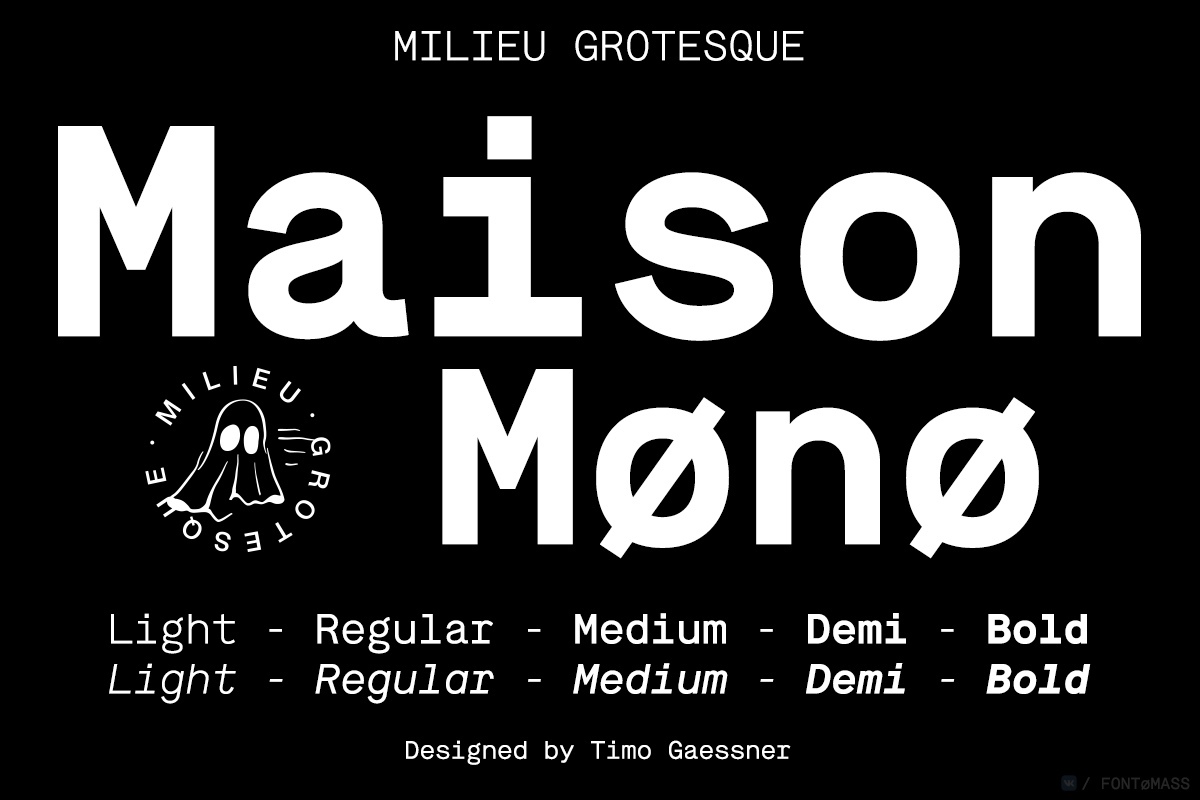
Maison Mono Font
Maison Mono Font is perfect for code editors, programming interfaces, terminal applications, data visualization projects, technical documentation, software development tools, command line interfaces, system monitoring displays, API documentation, and developer tool branding. This precision-engineered typeface excels in applications where character alignment, readability, and coding efficiency are fundamental requirements.
Maison Mono Font is exciting because it revolutionizes monospace typography by combining the functional requirements of programming with sophisticated design aesthetics that enhance the coding experience. Its carefully crafted letterforms feature optimized character spacing, improved distinguishability between similar characters, and refined proportions that reduce eye strain during extended coding sessions. The font's balanced approach eliminates the traditional trade-off between functionality and visual appeal in monospace design.
The Maison Mono Font family includes Regular, Bold, Light, and Italic variations, each maintaining perfect character alignment while offering different visual weights for syntax highlighting and code organization. The family features comprehensive programming symbol support, mathematical operators, and specialized characters essential for modern development environments. Advanced hinting ensures crisp rendering across all screen resolutions and operating systems.
Professional developers choose Maison Mono Font for its exceptional performance in coding environments and technical documentation. The font's precise construction enhances code readability, reduces errors, and improves overall programming productivity. Its sophisticated design makes it ideal for development teams seeking to combine functional excellence with visual refinement in their coding tools and technical communications.
The coding excellence of Maison Mono Font transforms development environments with its perfect balance of functionality and aesthetic sophistication. Its professional character appeals to serious developers while providing the technical precision required for error-free coding and efficient software development workflows.